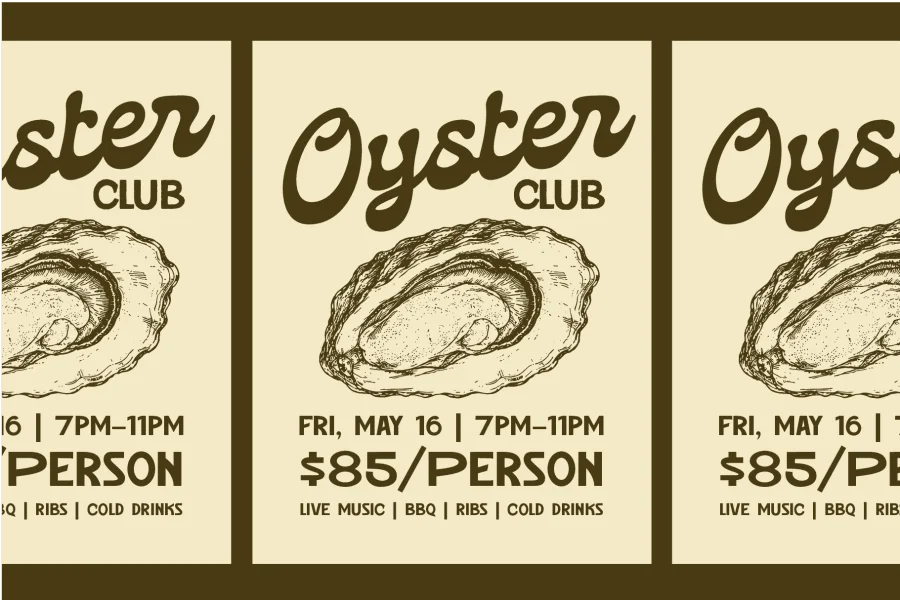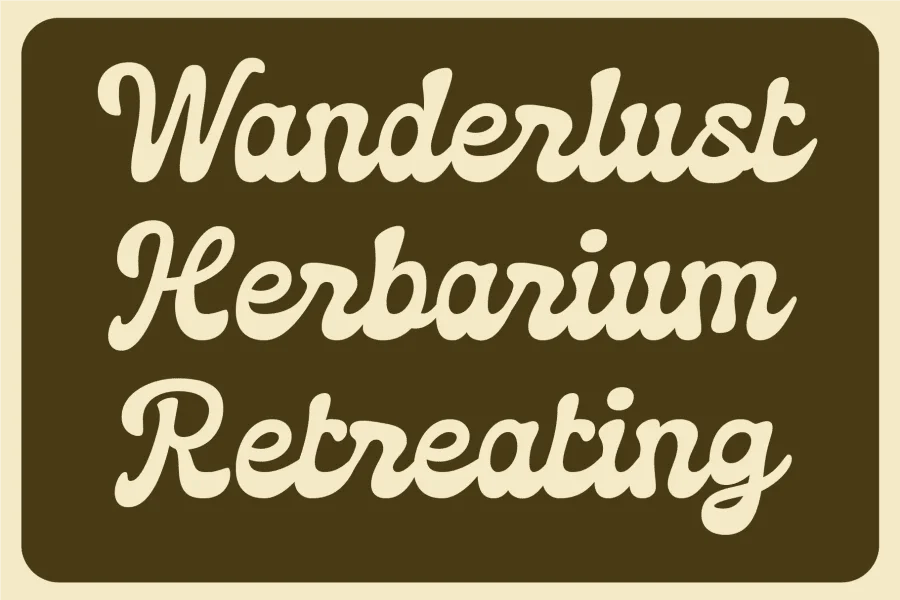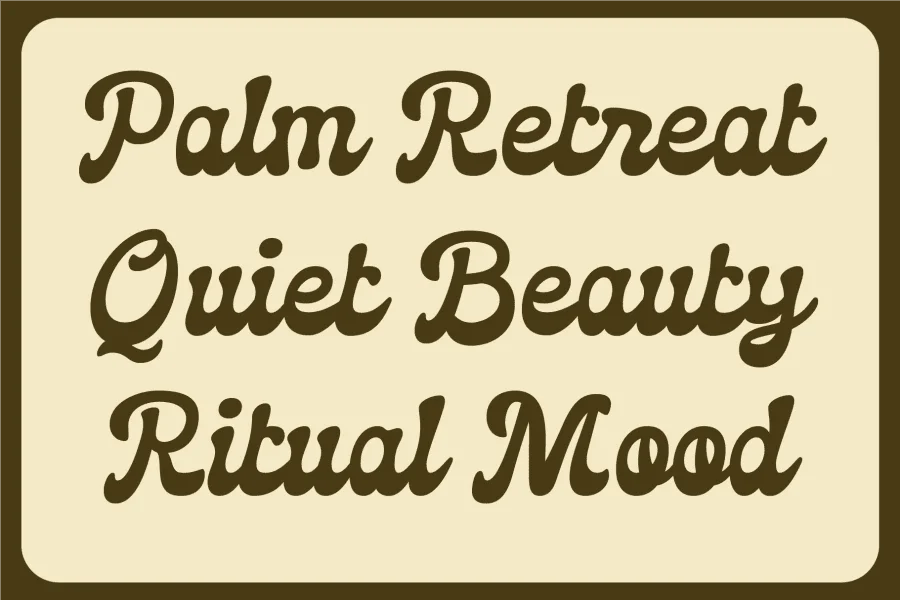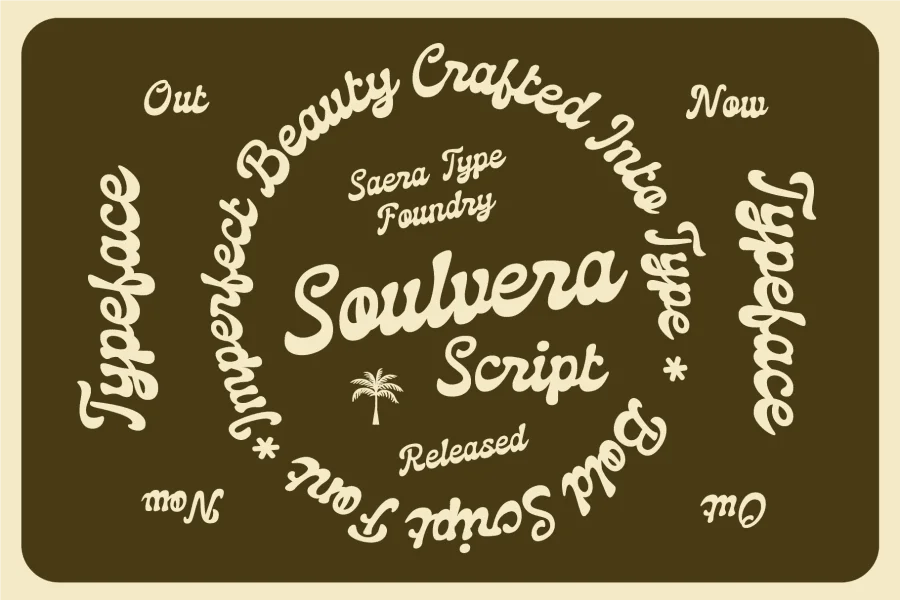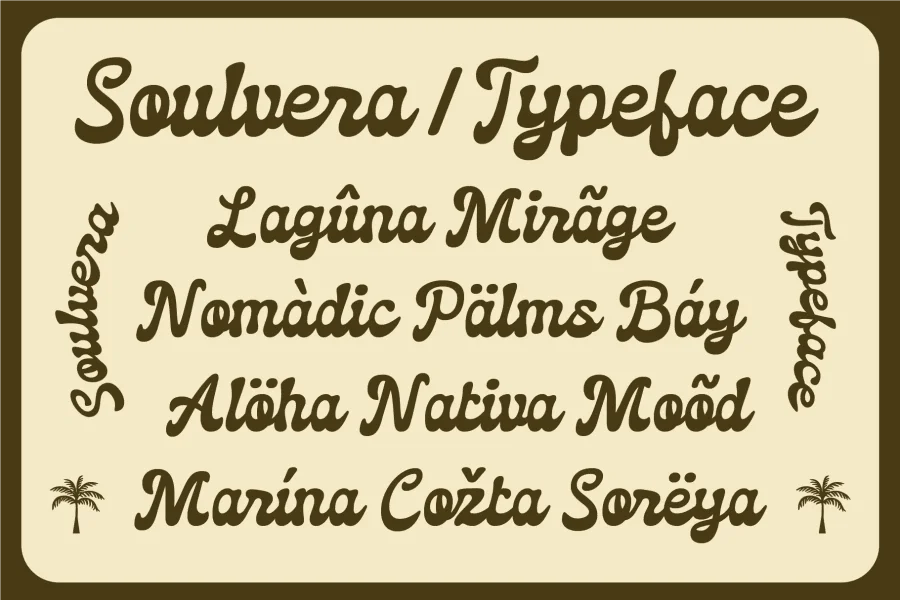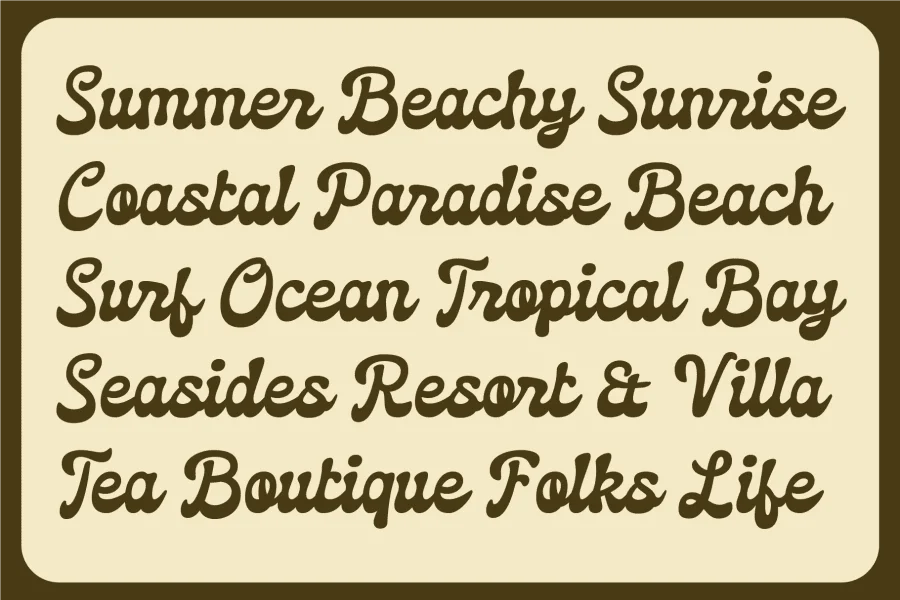
Inspired by tropical escapes, retro hospitality signage, and classic coastal typography, Soulvera is a bold vintage script font designed to bring warmth and personality into creative branding projects.
The handcrafted script style combines nostalgic curves with smooth modern usability, making it ideal for designers looking to create beach-inspired visuals, retro packaging, boutique identities, travel branding, and relaxed lifestyle aesthetics.
Soulvera feels equally strong in large headlines, logos, posters, packaging systems, and social media content. The visual tone is soft, welcoming, and nostalgic while still maintaining a clean professional appearance.
Great for:
Tropical branding
Coastal typography
Summer campaigns
Beach club identity
Surf-inspired graphics
Vintage packaging
Artisan product labels
Boutique hospitality
Handmade branding
Lifestyle design projects